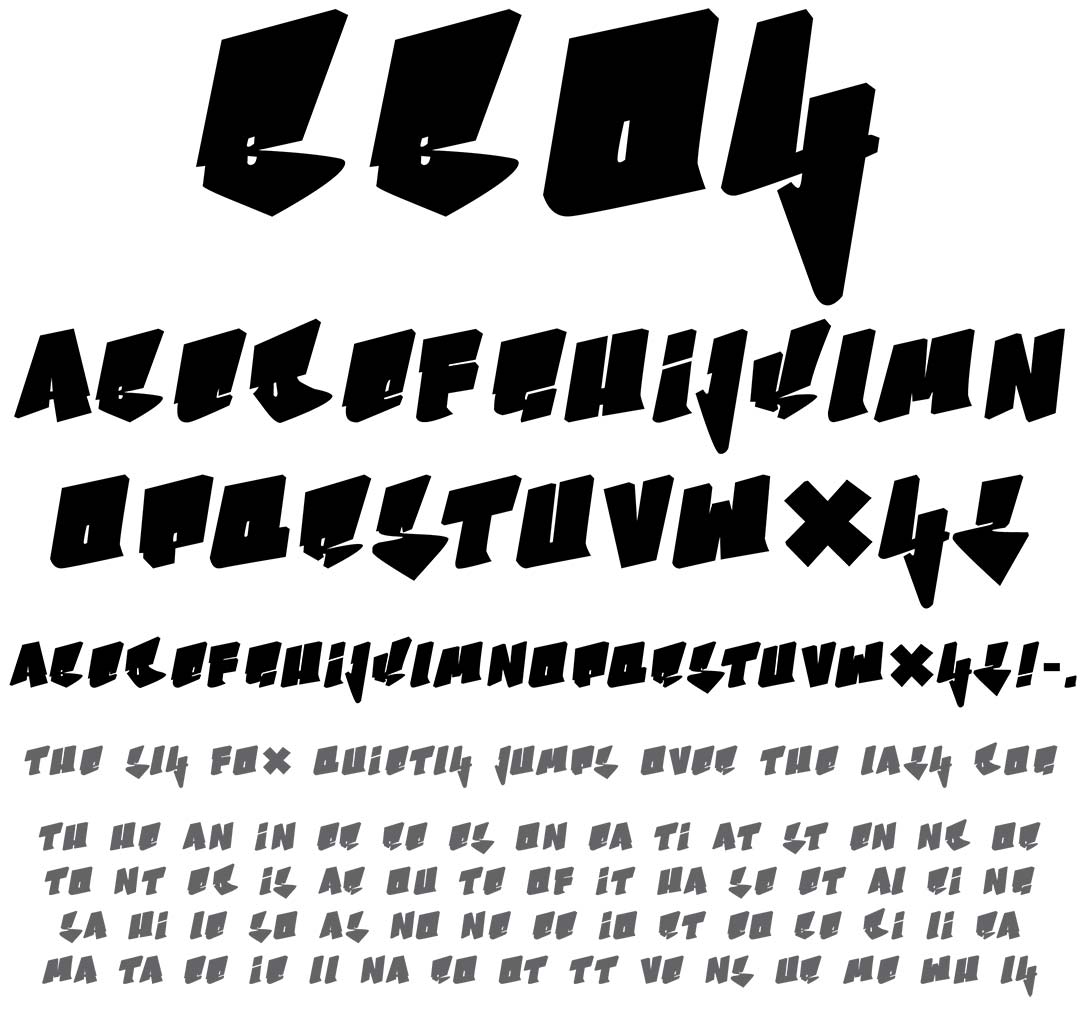
B-Boy
B-Boy Graffiti Alphabet
B-Boy Graffiti Font Family
B-Boy is a classic, old school hip-hop, graffiti style font. The typeface has the look of vintage breakdance copetition fliers or DJ battles. This throwie style has even, straight edges & rounded corners. It works well with fat outlines.